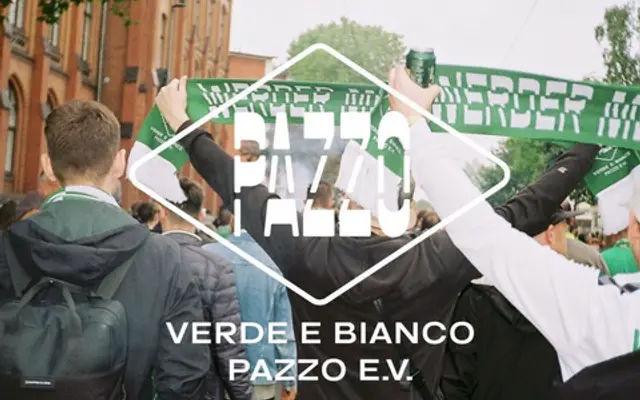
Vroum GTI
Lift Type · Romain Oudin · 2020
A stencil display family by Romain Oudin built around car culture, with reverse contrast, two width variants and shifted oblique cuts called 'decalic'.
Released in 2020, Vroum GTI offers four typefaces across two widths (A and B) and two weights (Light and Bold), each with a 'decalic' oblique counterpart for a total of eight styles. The design draws on tire tracks, road markings and automotive aesthetics, using a double stencil structure and reverse contrast to produce a typeface suited to large-scale, high-impact display work. Circled numbers, arrows and pictograms are included alongside 344 glyphs covering broad Latin-script language support.
A display typeface with double stencil construction and reverse contrast, explicitly designed for large-scale typographic use with car and motorsport theming. The 'decalic' oblique variants and stencil cuts place it firmly in the display category.